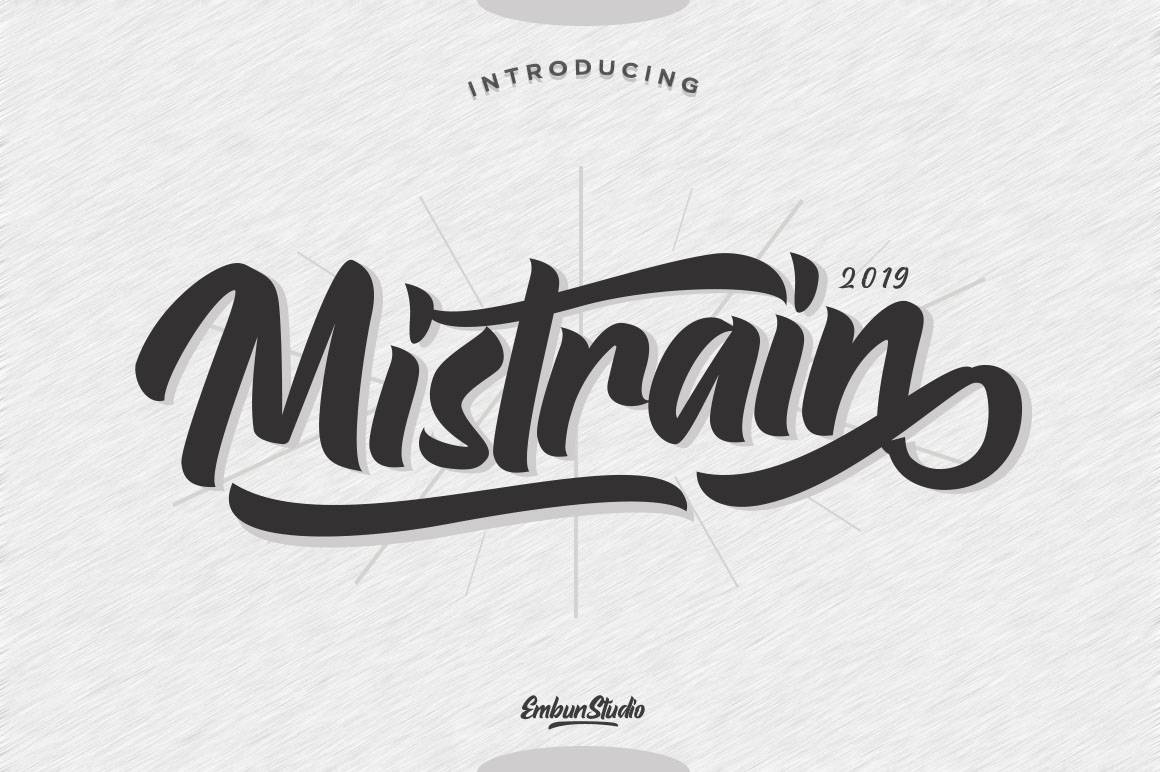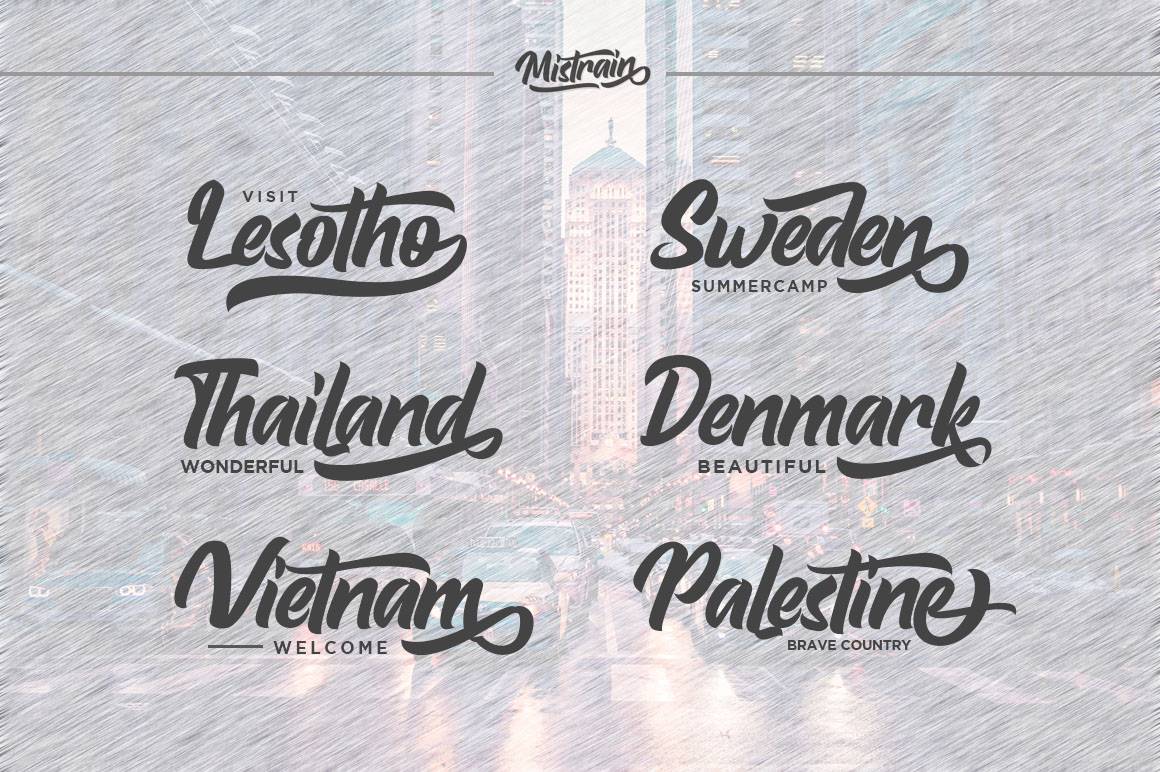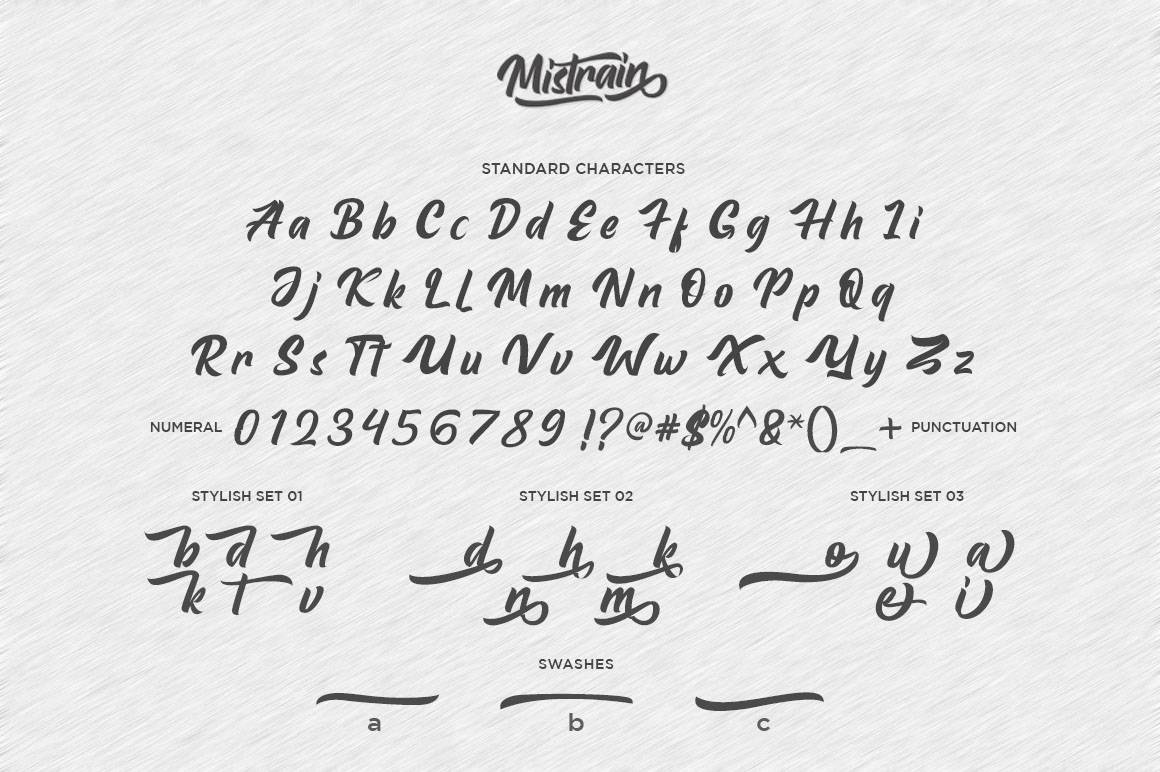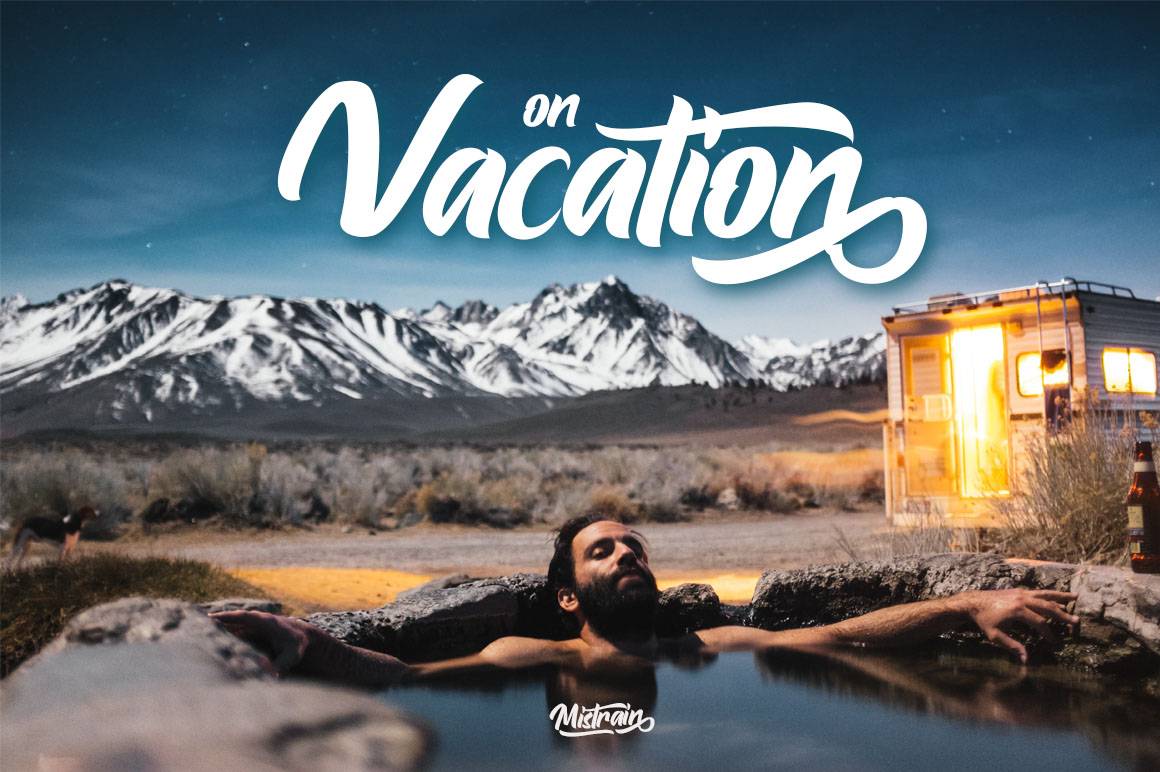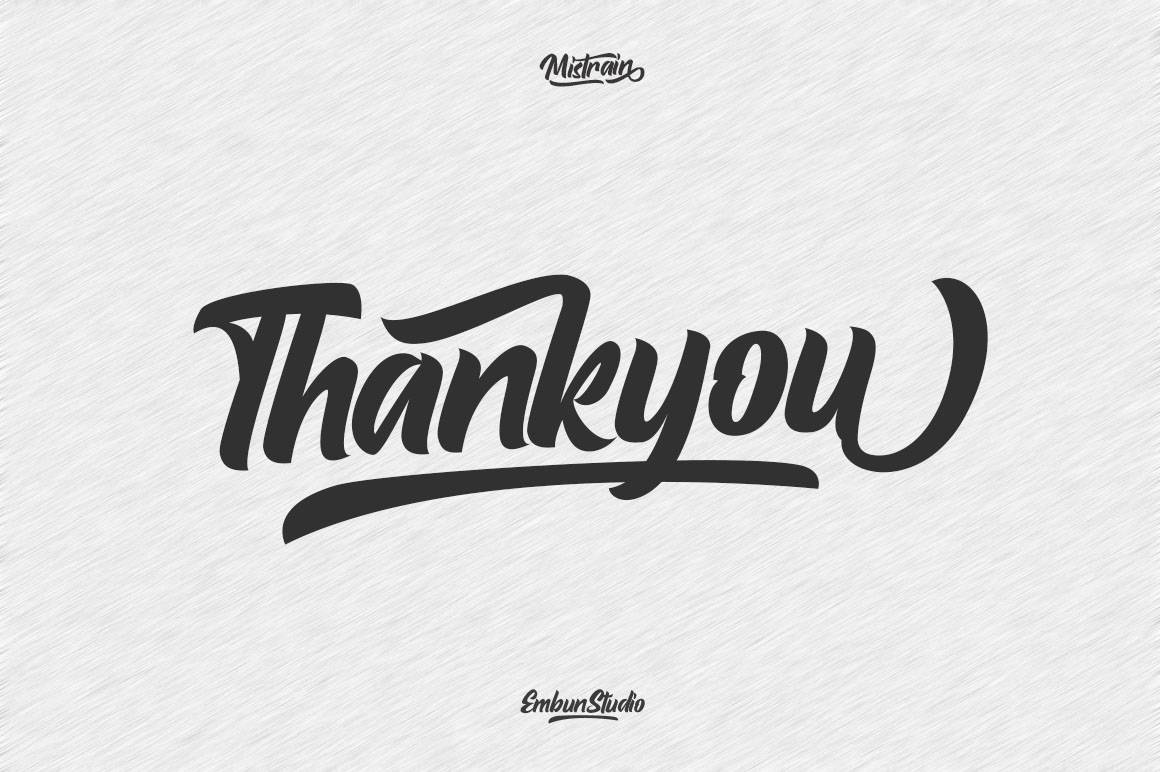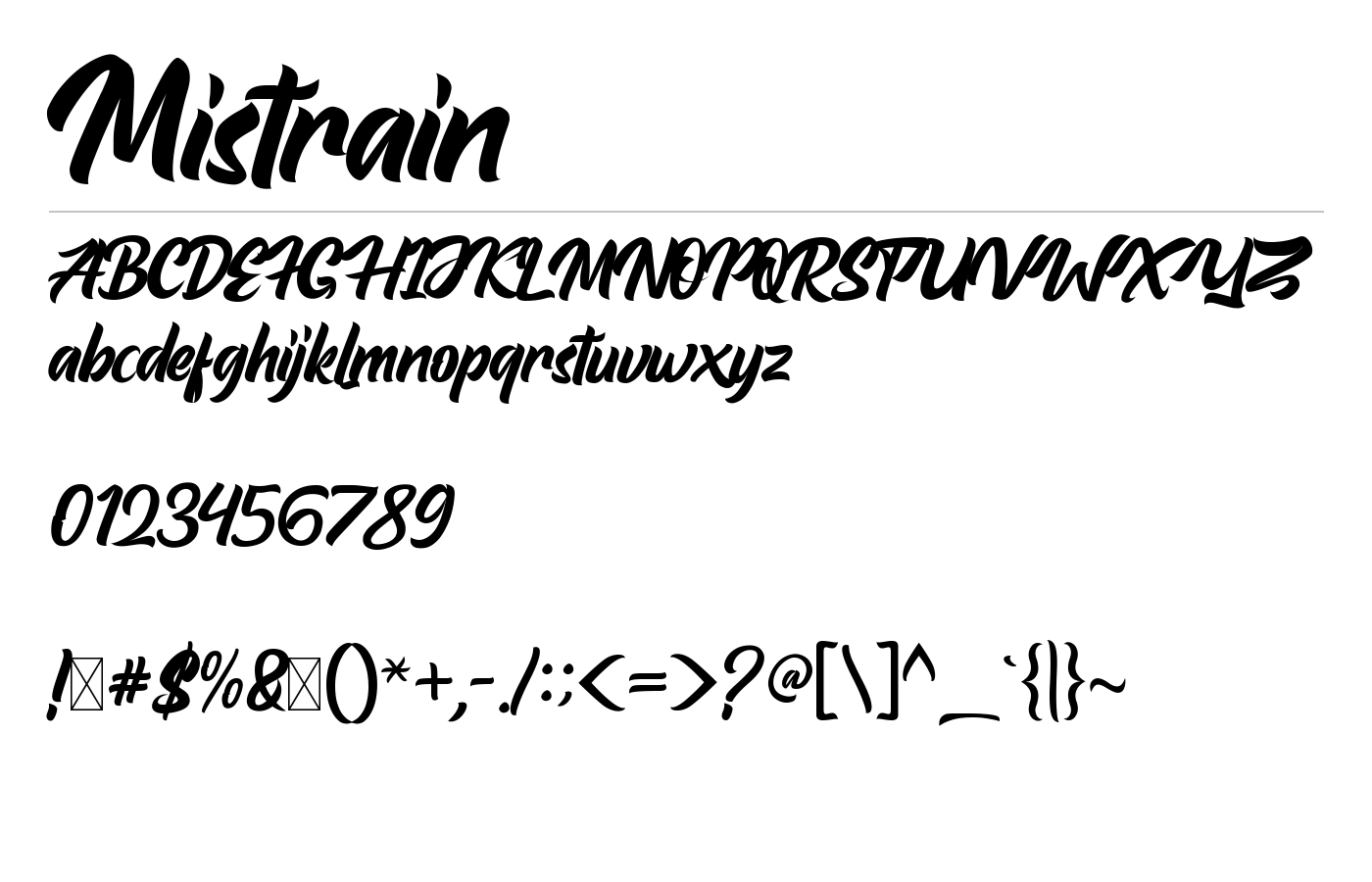
Mistrain Script Modern Hand Lettering is a bold, energetic script font featuring dynamic brush strokes and a lively, hand-drawn style. Its fluid letterforms and moderate contrast give it a casual yet confident character, making it ideal for creative branding, eye-catching headlines, and stylish packaging that seek a modern, artistic touch. This font works best where personality and movement are key, bringing warmth and vibrancy to any design.
Mistrain Script Modern Hand Lettering
About Mistrain Script Modern Hand Lettering
| Font family | Mistrain Script Modern Hand Lettering |
| Designer | Aditya Rezki |